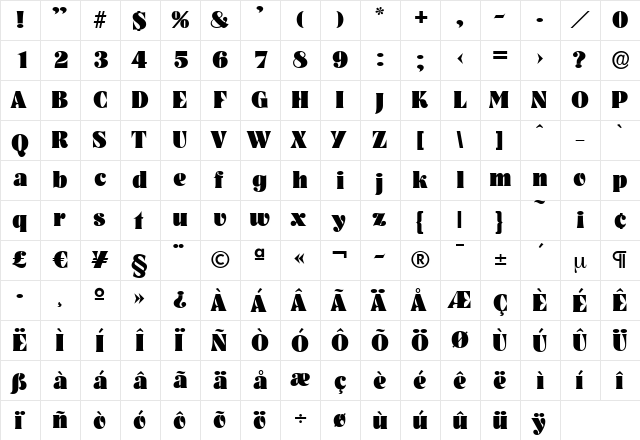
BobBecker-Heavy Regular Font Preview
BobBecker-Heavy Regular
BobBecker-Heavy Regular Font Details
Design Context for BobBecker-Heavy Typeface
BobBecker-Heavy offers clean, dependable letterforms without strong stylistic allegiance, making it a practical choice for designers who need flexibility.